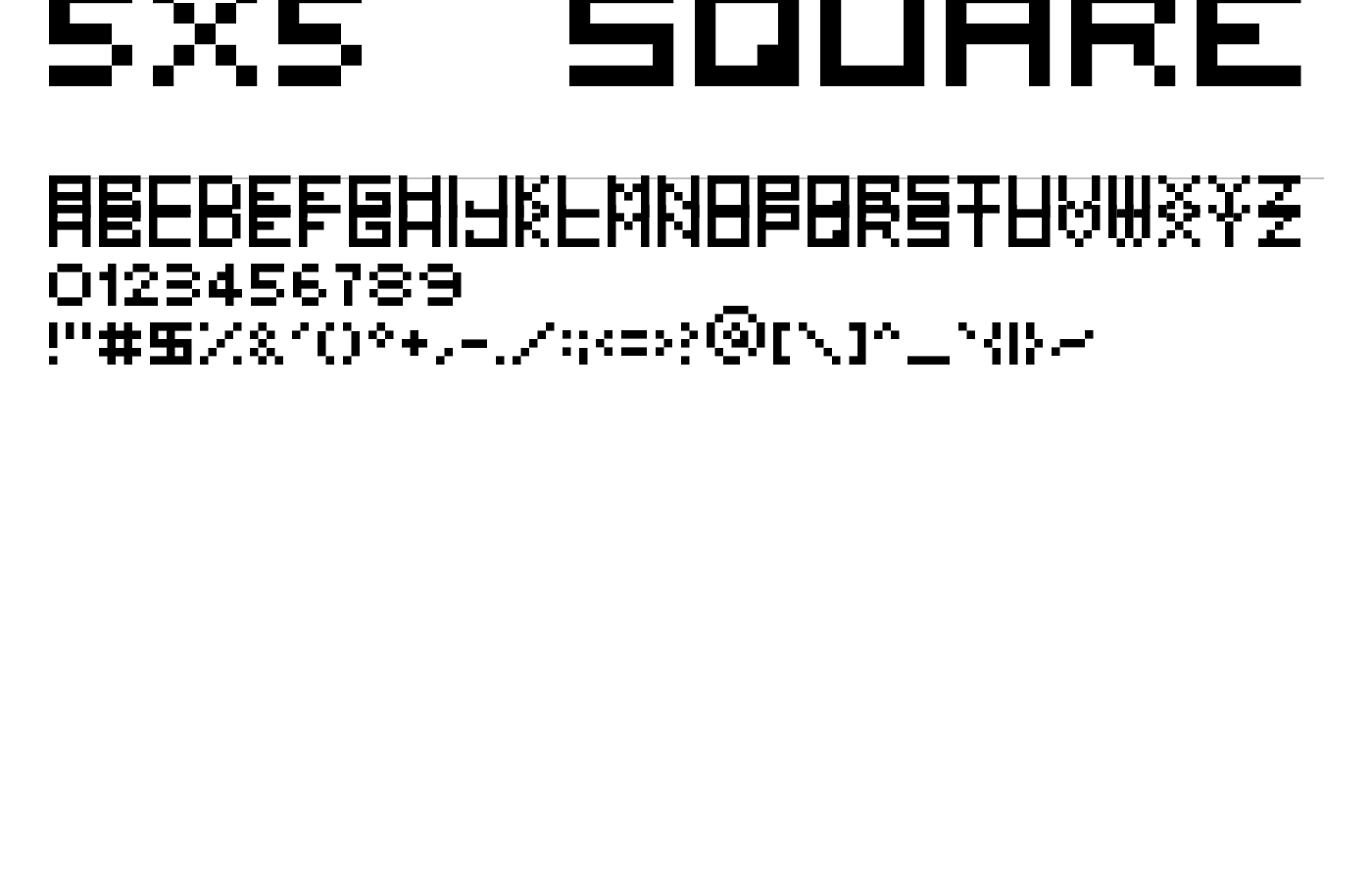
5x5 Square is a pixelated, monospaced sans serif font with a distinct blocky and geometric style, designed on a 5x5 grid. Its rigid, low-resolution appearance gives it a retro, digital feel perfect for video games, tech-themed designs, or any project seeking a nostalgic, minimalist computer aesthetic. This font works best in headlines, logos, and digital displays where clarity and a playful, vintage tech vibe are desired.